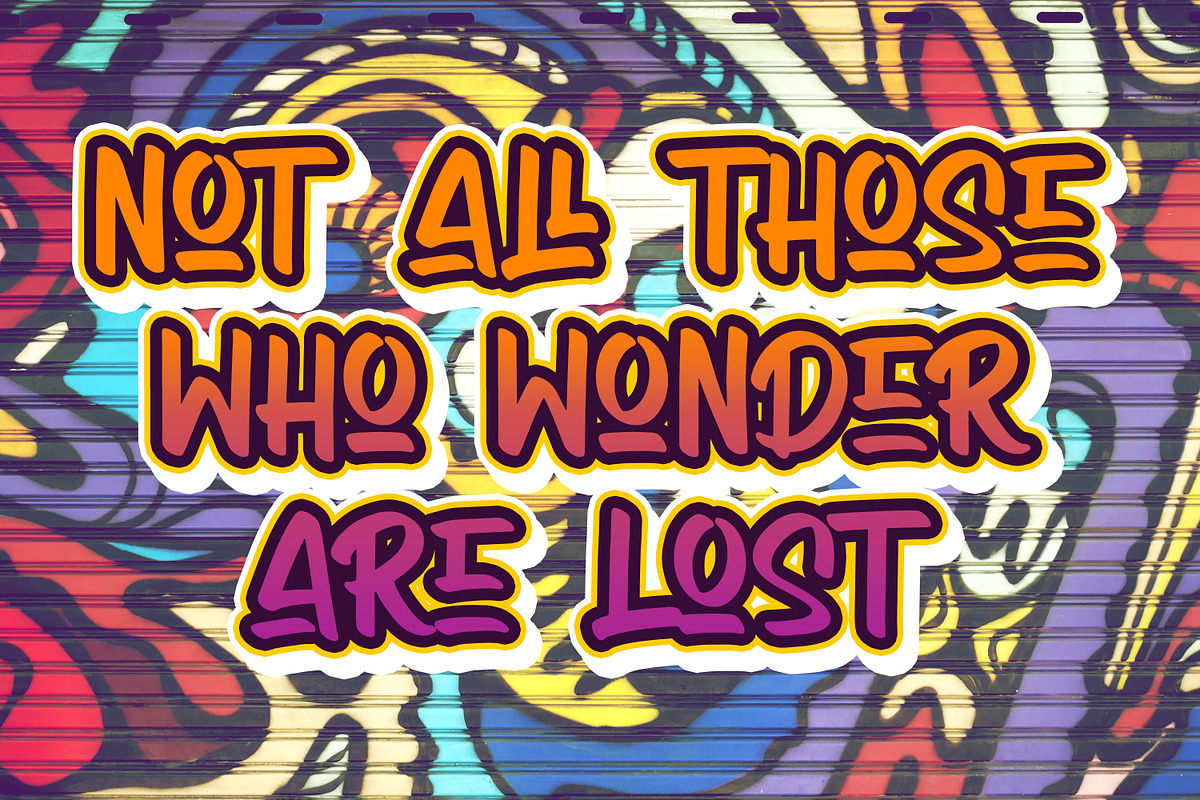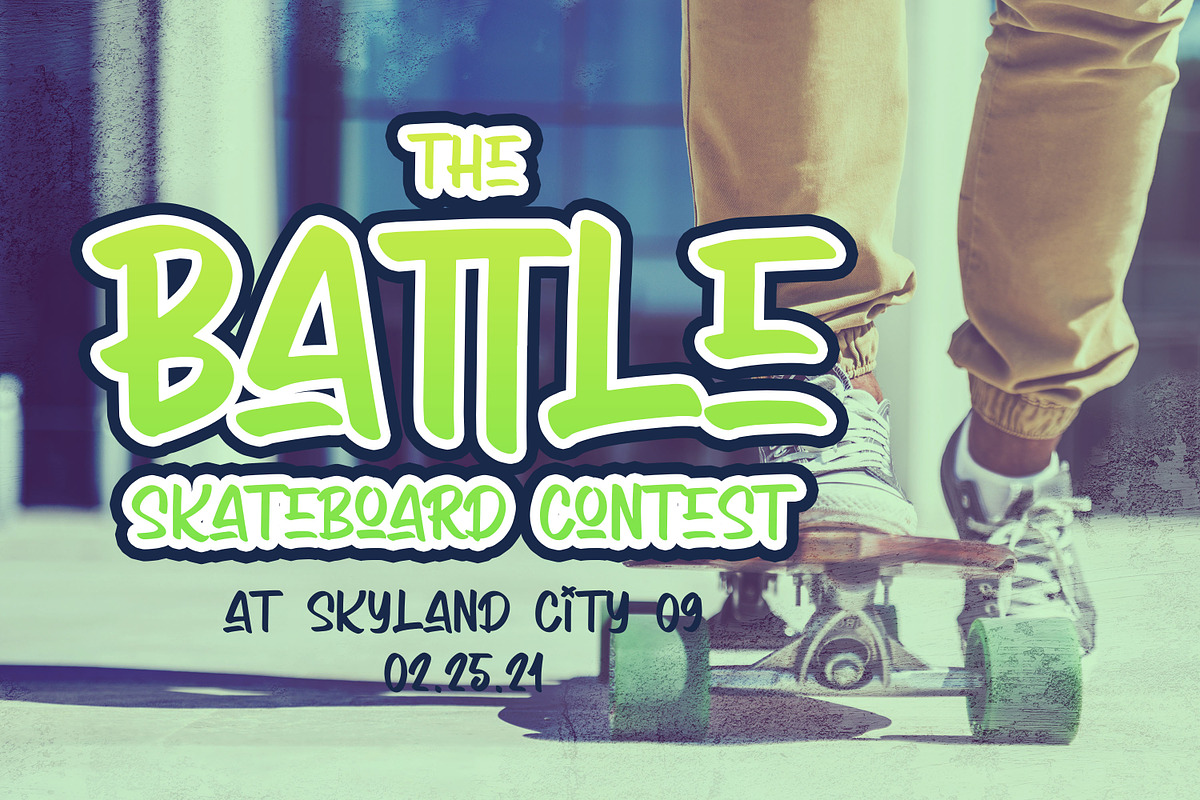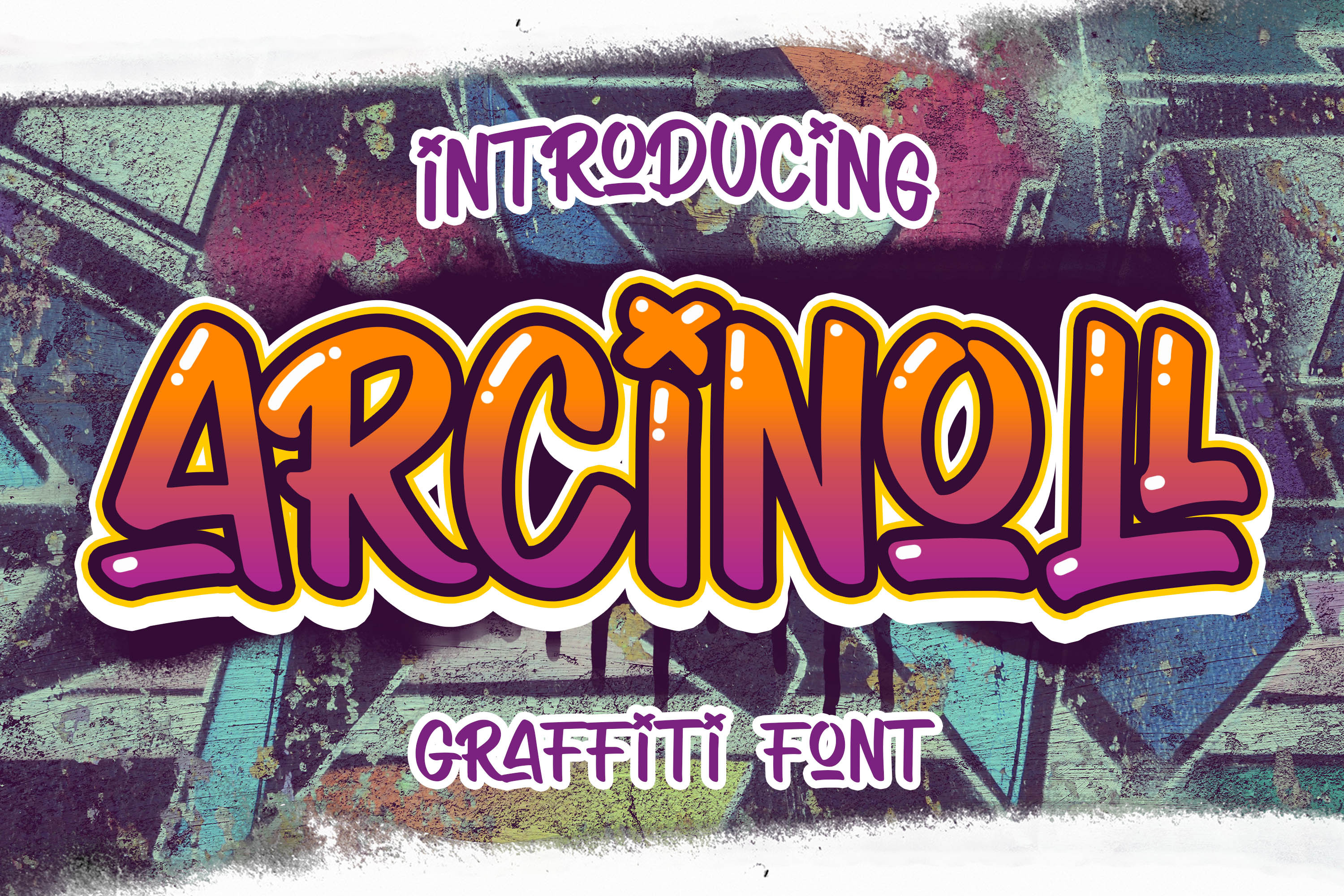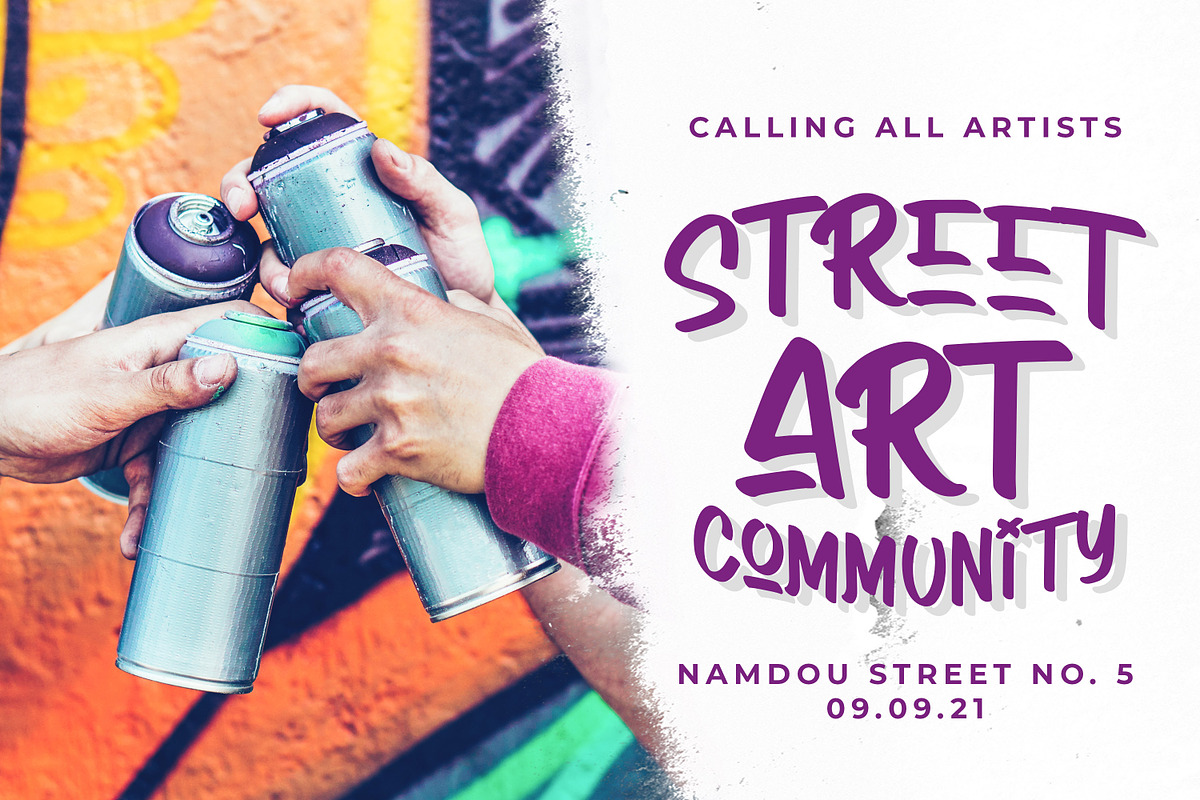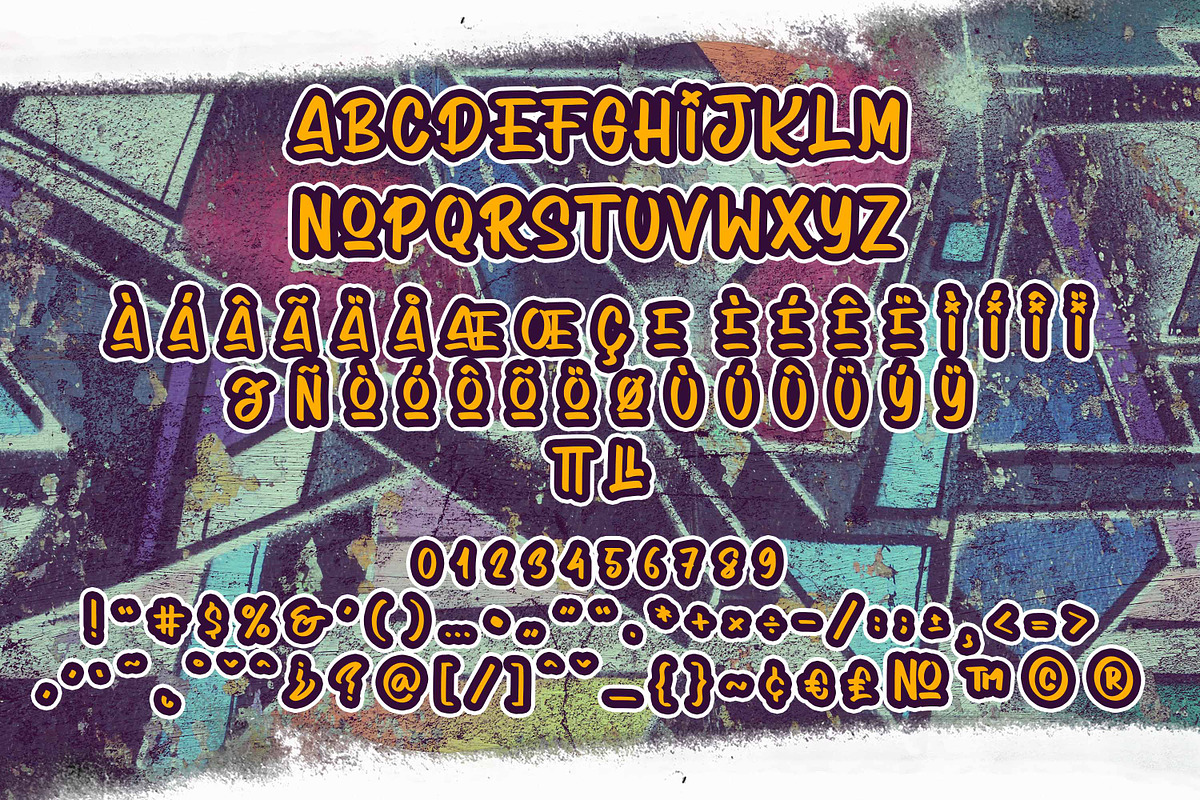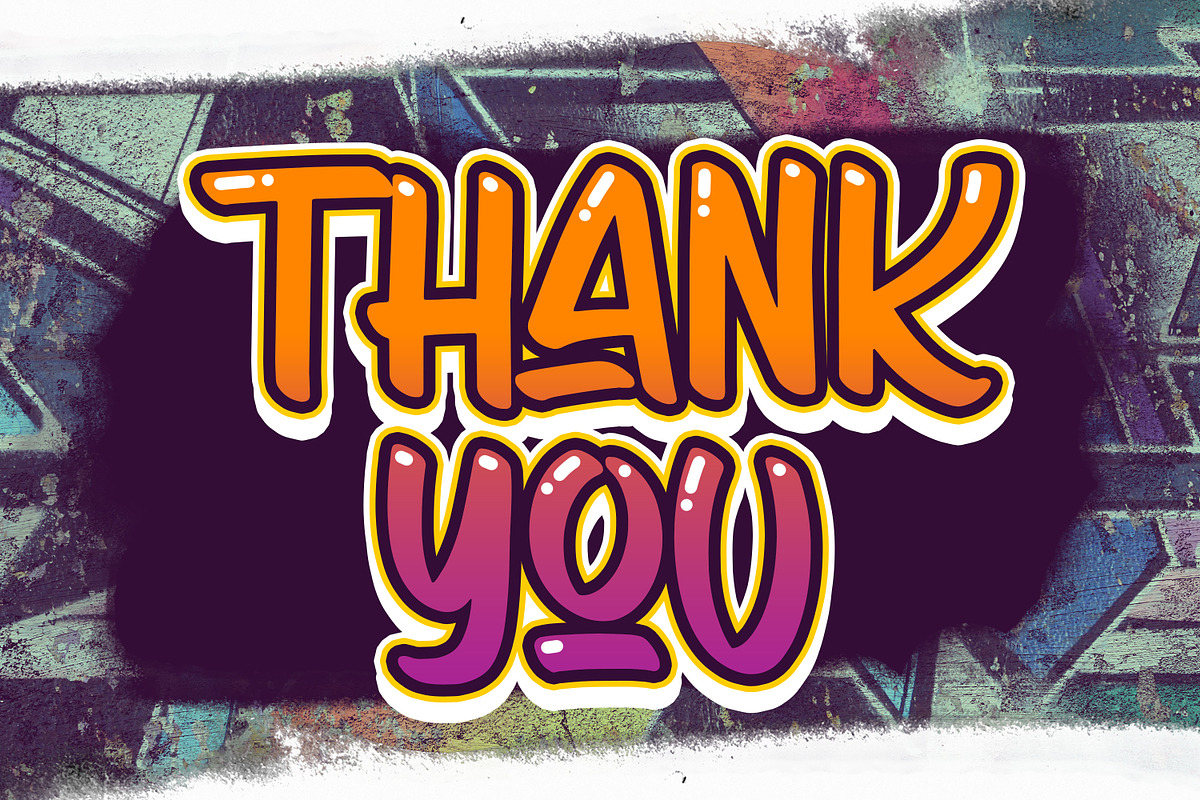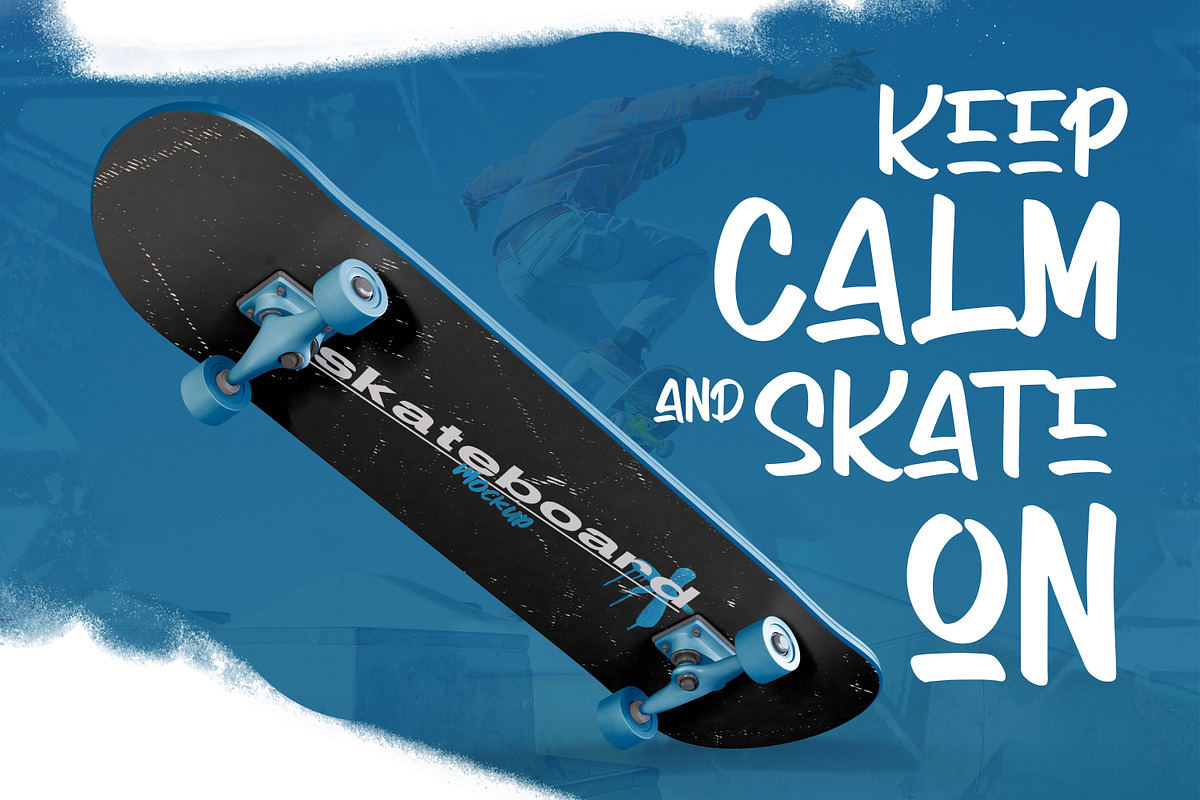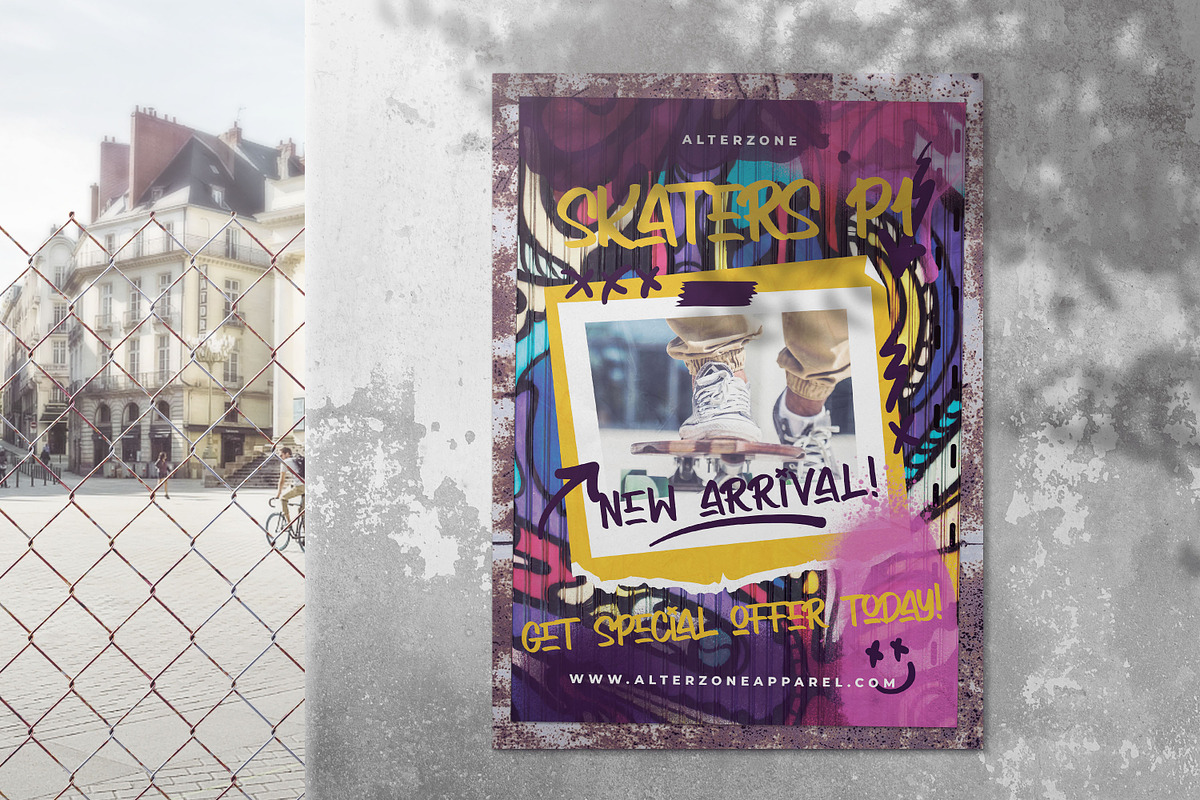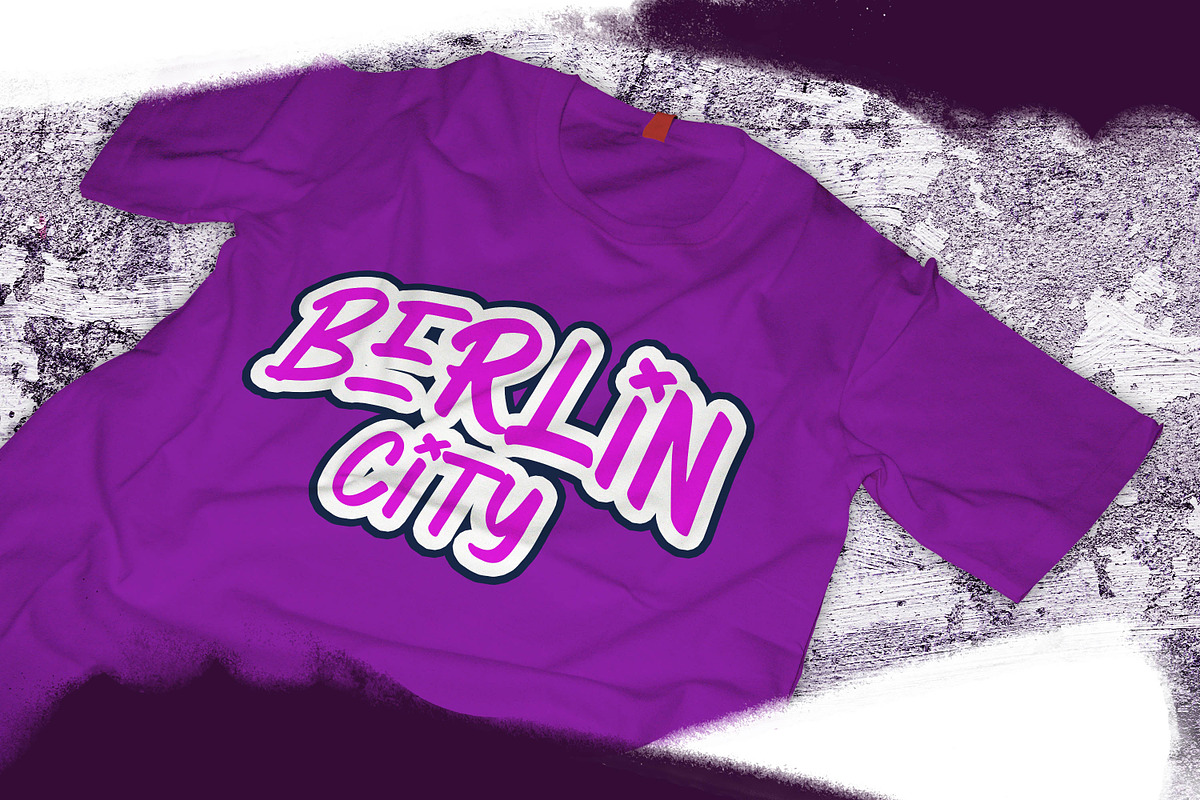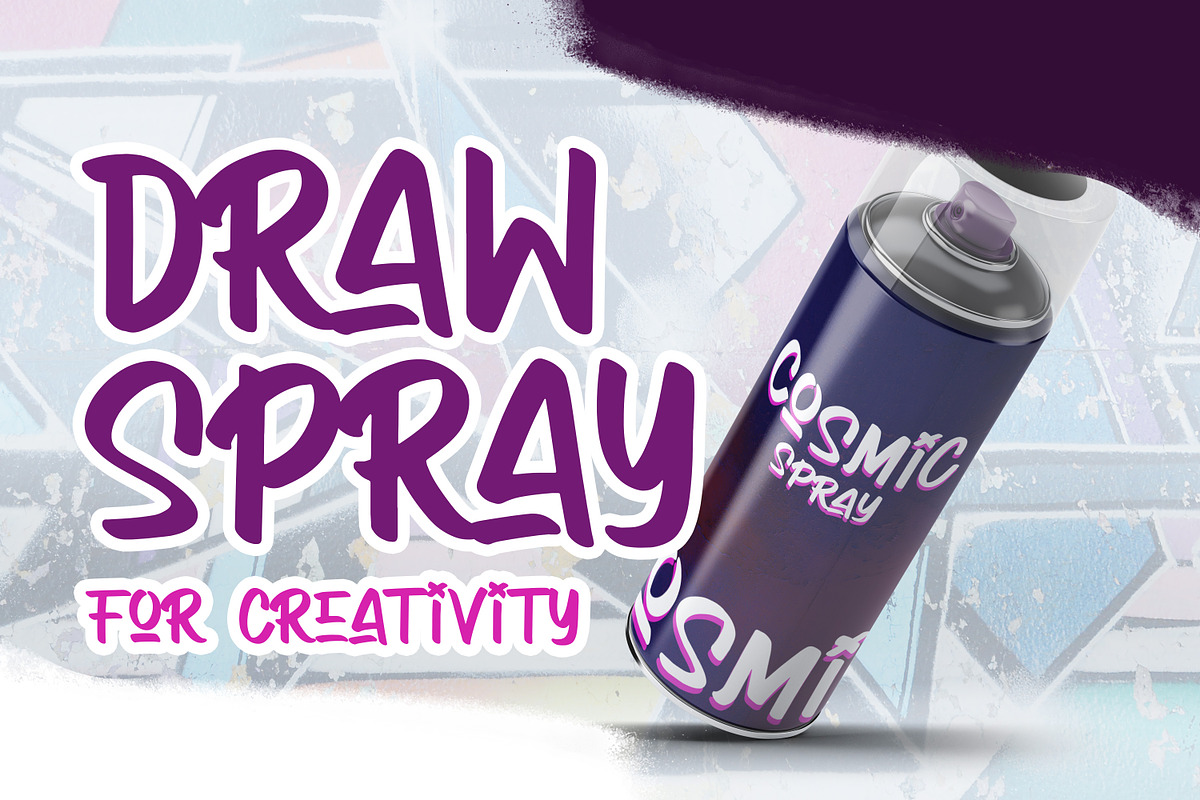
Sale! : Arcinoll - Graffiti Font
Introducing Arcinoll - Graffiti Font inspired by graffiti style with a fun theme very good for graffity poster, kids poster, flyer, childrenbook, cartoon, branding projects, Logo design, Quotes product packaging